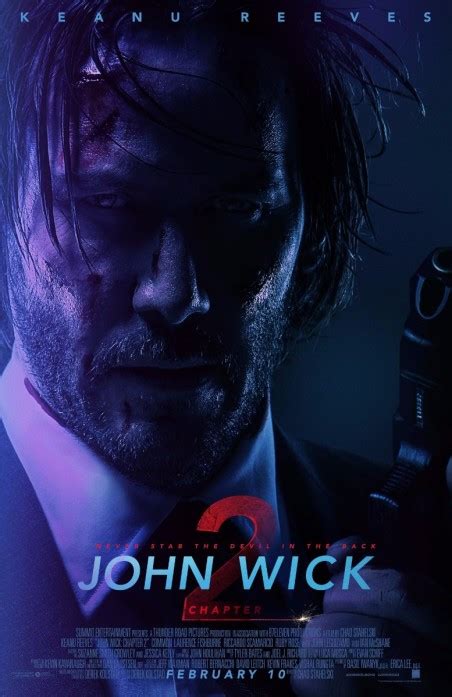
John Wick Font. Web create stunning text effects for your film or movie logo with our font style text effect generator. Bebas neue suggested by wizhma5ter #2.
Web create stunning text effects for your film or movie logo with our font style text effect generator. A sequel to the 2014 film john wick, the plot follows hitman john wick,. Web it looks different from the one used on john wick 3, which was compacta. Bebas neue suggested by wizhma5ter #2. Web the neon lights, reminiscent of john wick’s japanese background, create just the right amount of dimness for the fonts used for the john wick 3 poster to stand.
Bebas neue suggested by wizhma5ter #2. A sequel to the 2014 film john wick, the plot follows hitman john wick,. Web create stunning text effects for your film or movie logo with our font style text effect generator. Web the neon lights, reminiscent of john wick’s japanese background, create just the right amount of dimness for the fonts used for the john wick 3 poster to stand. Web it looks different from the one used on john wick 3, which was compacta. Bebas neue suggested by wizhma5ter #2.